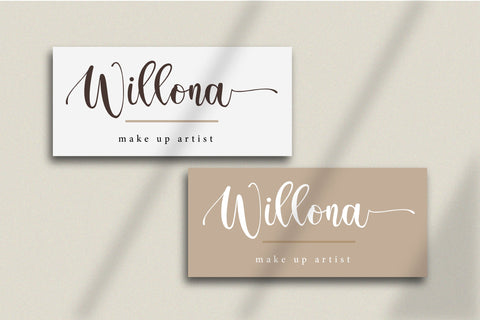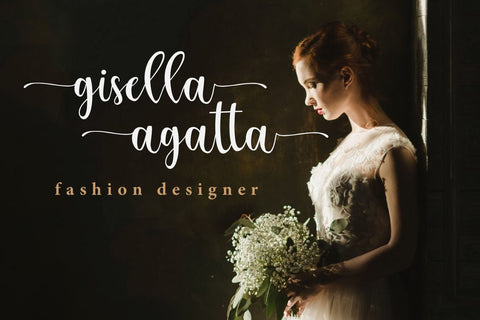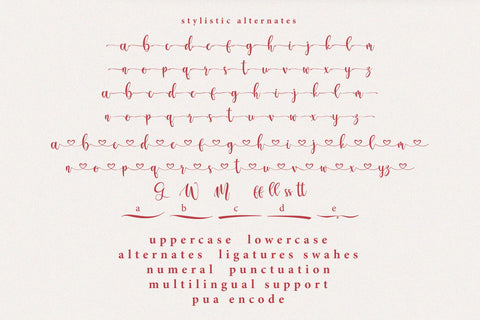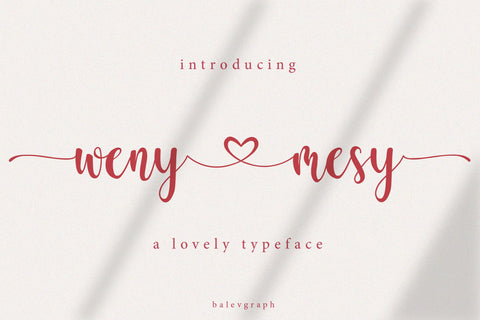
Weny Mesy – A Romantic & Lovely Calligraphy Typeface
Weny Mesy is a romantic and sweet calligraphy typeface with characters that dance along the baseline. It will add a luxury spark to any design project that you wish to create! This font is PUA encoded which means you can access all of the amazing glyphs and ligatures with ease!
– Uppercase, Lowercase, Numerals & Punctuations
– Ligature & Alternate
– Multilingual support